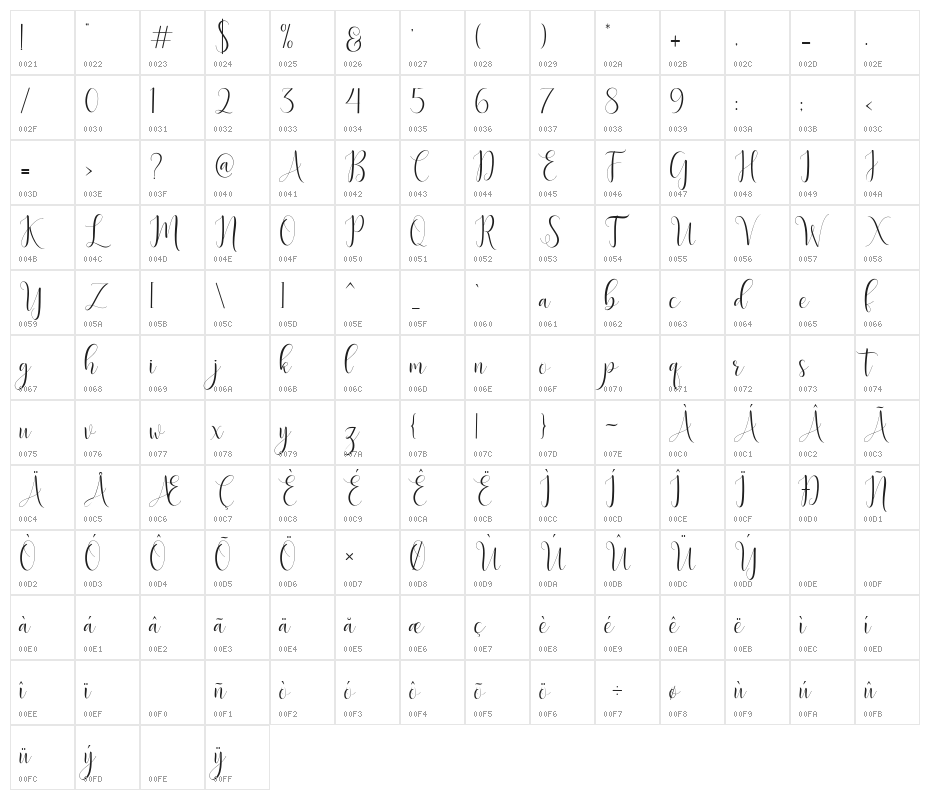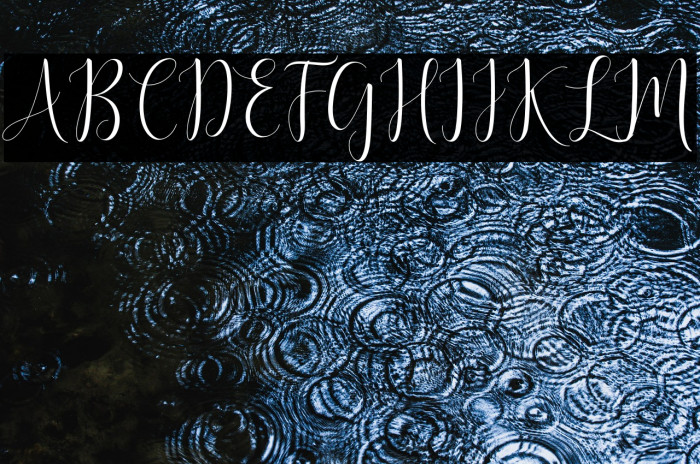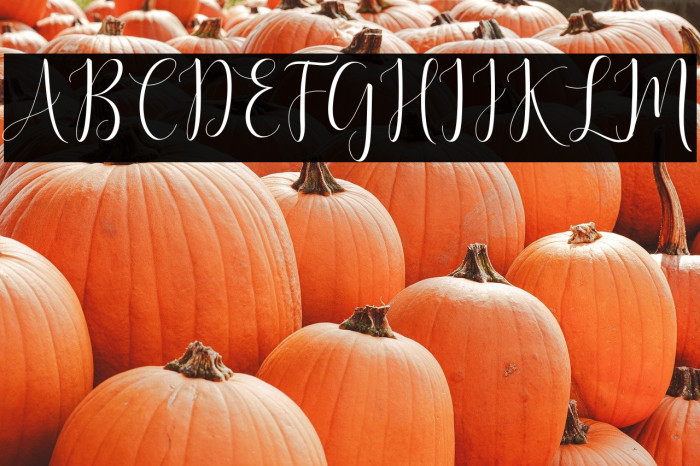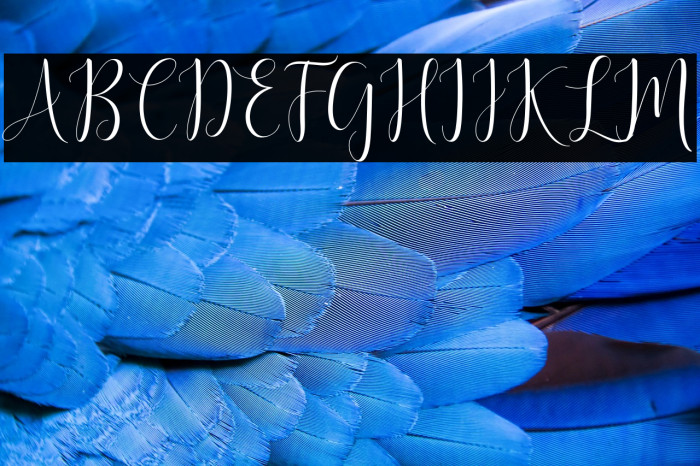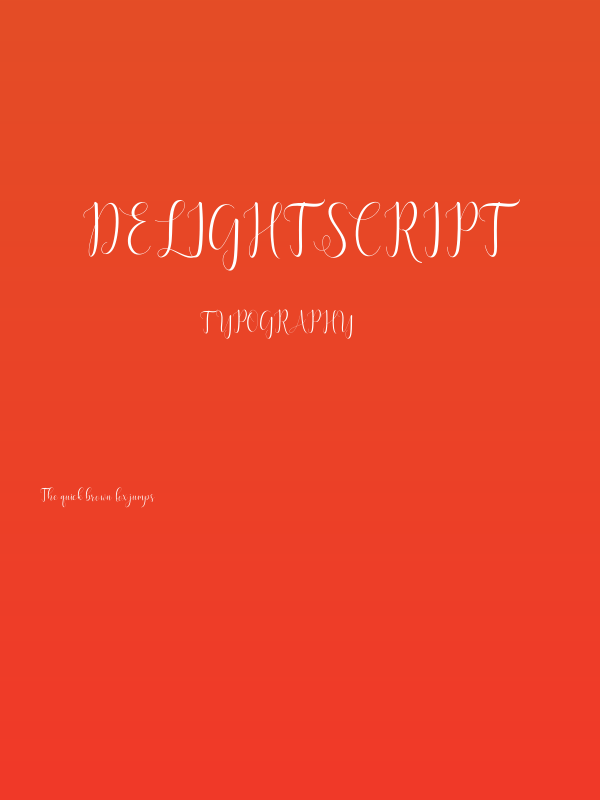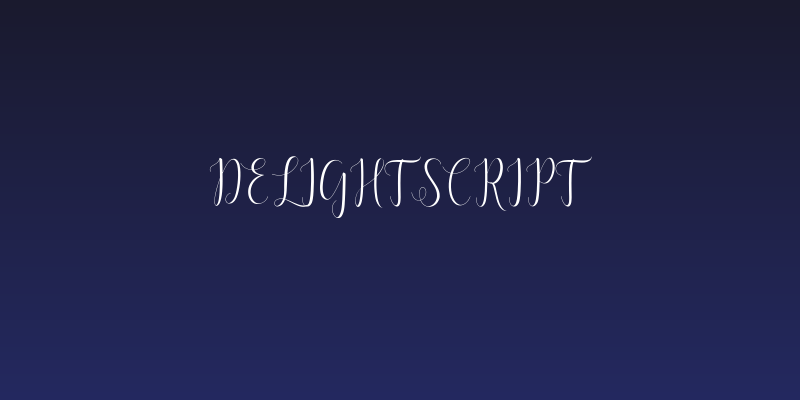
DelightScript Font
DelightScript Description
This elegant script font features flowing, cursive letters with a graceful and sophisticated appearance. The uppercase characters are tall and slender, with intricate loops and swirls that add a touch of flair. The lowercase letters maintain a consistent style, with smooth connections and a fluid motion that enhances readability. Numbers and special characters are designed to complement the overall aesthetic, maintaining the same elegant curves and delicate lines. The font exudes a sense of refinement and is perfect for projects that require a touch of class and elegance.
| Overall Style | Elegant |
| Use Case | Logos, Invitations, Branding |
| Proposed Projects | Ideal for wedding invitations, elegant branding, luxury product packaging, and personal stationery. |